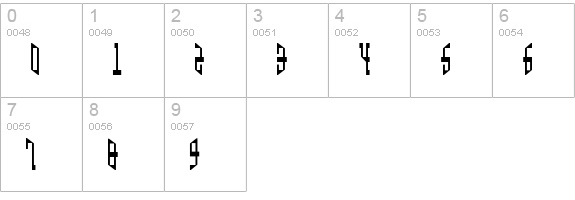
Hip Font Details
Introducing Hip font, a trendy and stylish typeface that exudes confidence and modernity. This unique font is perfect for making a bold statement in your designs, whether it's for branding, advertising, or social media graphics. With its sleek lines and contemporary vibe, Hip font is sure to catch the eye and leave a lasting impression. And the best part? This fabulous font is completely free to download at FontsMarket.com! Yes, you read that right - you can elevate your designs with the Hip font without spending a dime. So why wait? Add a touch of sophistication and flair to your projects with the Hip font today!